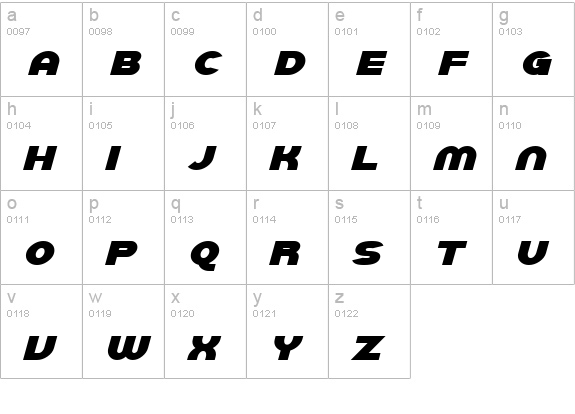
SF Juggernaut Bold Italic Font Details
SF Juggernaut Bold Italic is a strong, high-contrast, italic variant in the SF typeface family \xE2\x80\x94 well suited to headlines, attention-grabbing titles, and strong calls-to-action.
Introducing SF Juggernaut Bold Italic, a powerful and dynamic font that exudes a sense of strength and confidence. This font is designed to make a bold statement and capture attention with its commanding appearance. The bold and italic combination adds a touch of sophistication, making it perfect for a wide range of design projects. SF Juggernaut Bold Italic effortlessly combines sleek curves with sharp angles, creating a unique visual experience that is both modern and timeless. Its strong presence on the page demands attention and ensures that your message is conveyed with impact. But what makes SF Juggernaut Bold Italic even more remarkable is that it is free. Yes, you read that right! This exceptional font is freely available to download at FontsMarket.com. This means that you can enhance your designs with this impressive typeface without having to worry about any additional costs. Whether you are designing a poster, a logo, a website, or any other creative project, SF Juggernaut Bold Italic will bring a touch of boldness and elegance to your work. Its versatility allows it to be used for both headlines and body text, making it a valuable addition to any designer's toolkit. With SF Juggernaut Bold Italic, you can unleash your creativity and make a statement that will leave a lasting impression. So why wait? Head over to FontsMarket.com and download this remarkable font for free today!